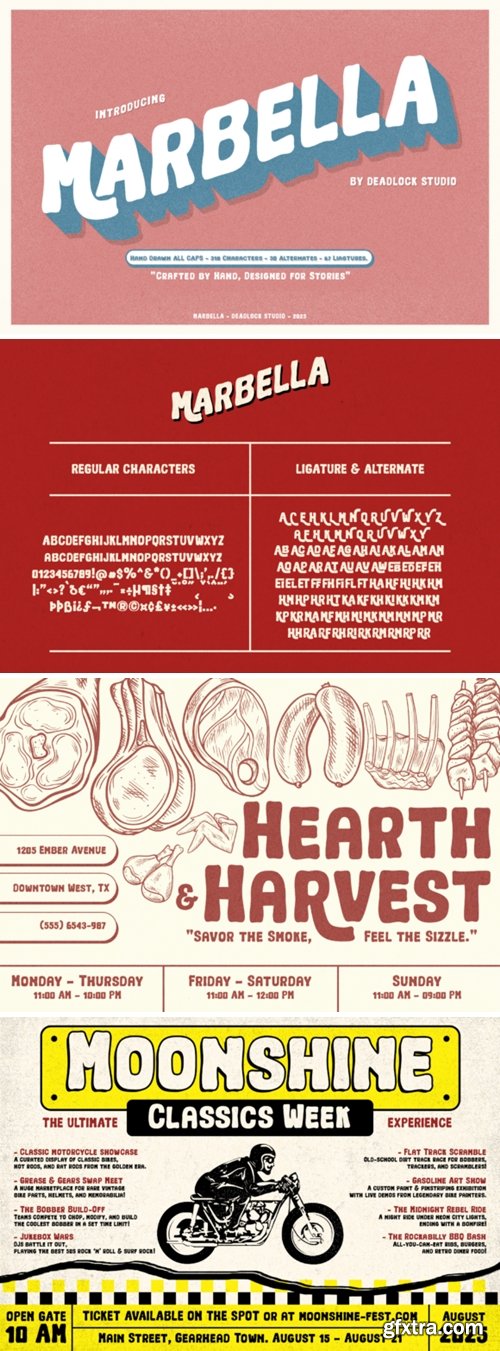
CM - Marbella Font
Introducing Marbella, a hand-drawn vintage typeface crafted for designers who love the bold, rugged, and retro aesthetic. Inspired by mid-century race posters, hot rod graphics, and vintage motorcycle festival signage, Marbella brings authentic nostalgia with a modern edge.